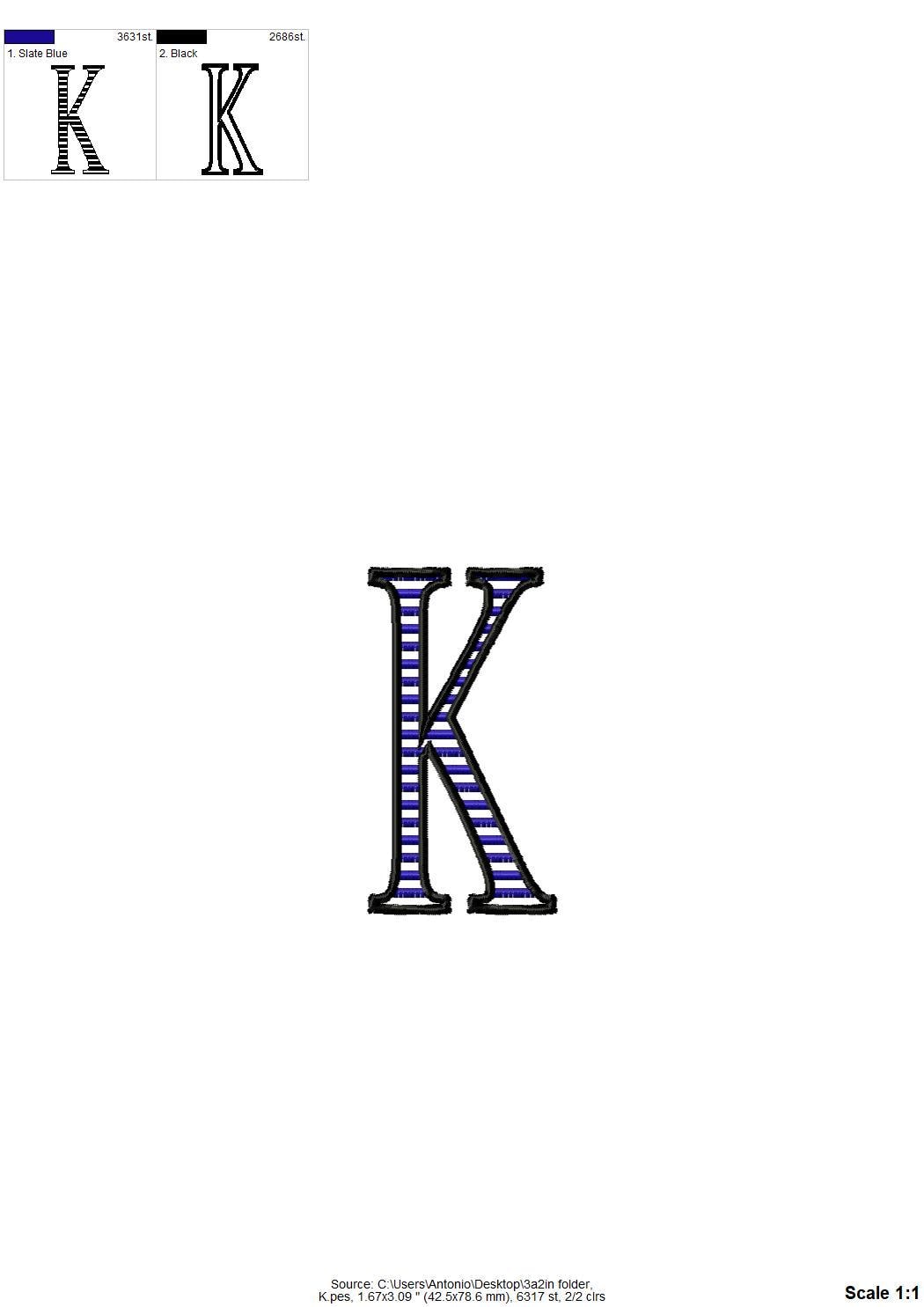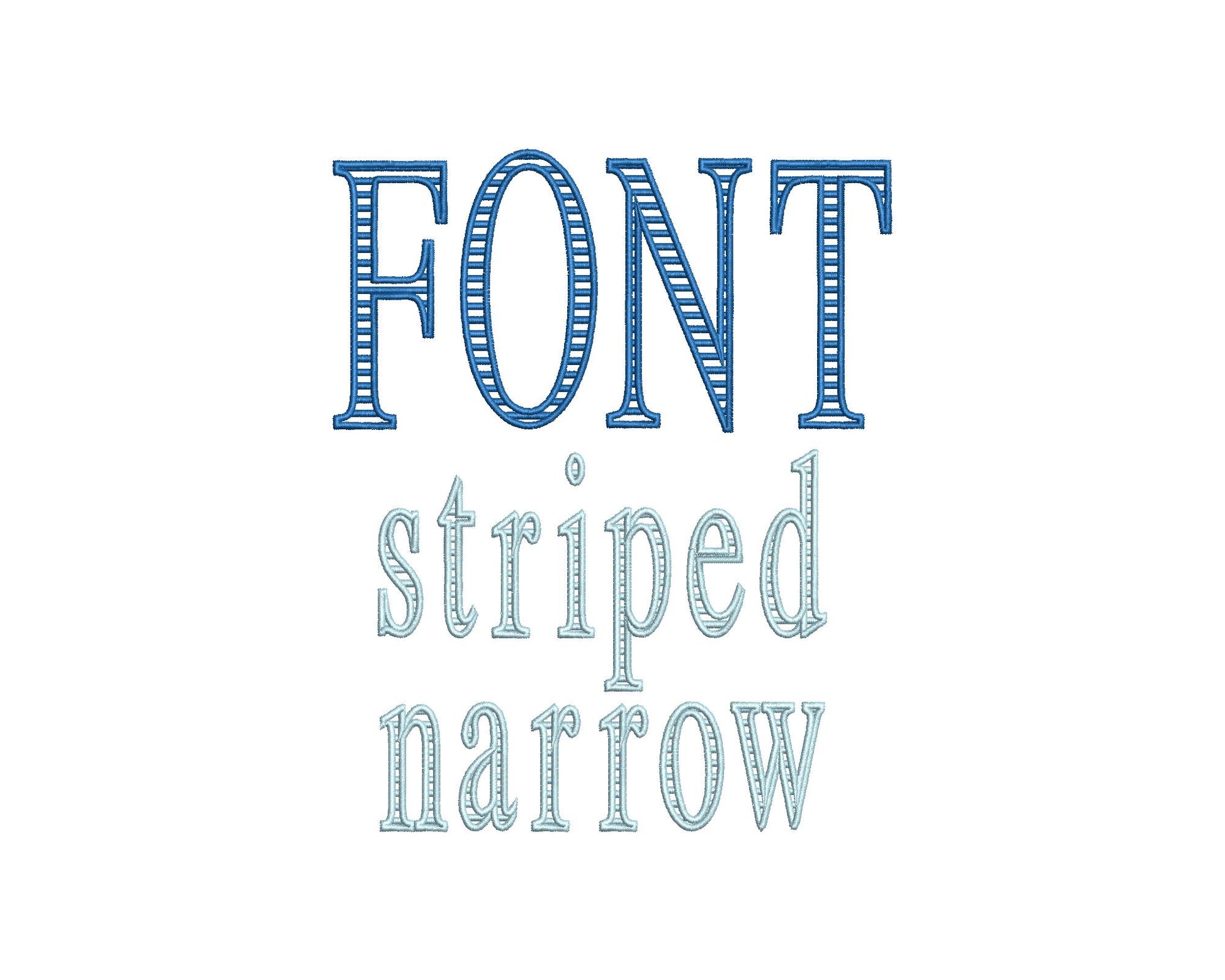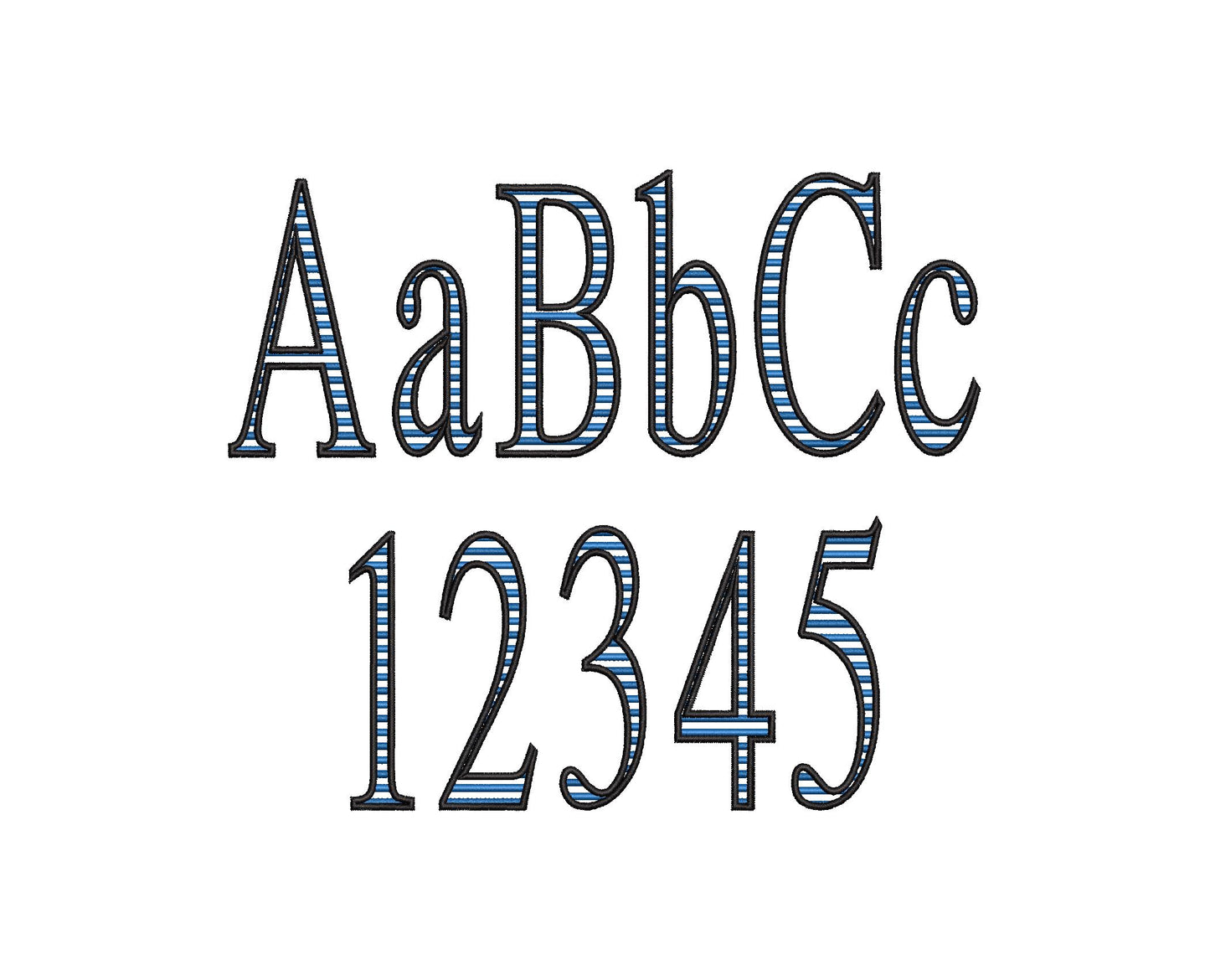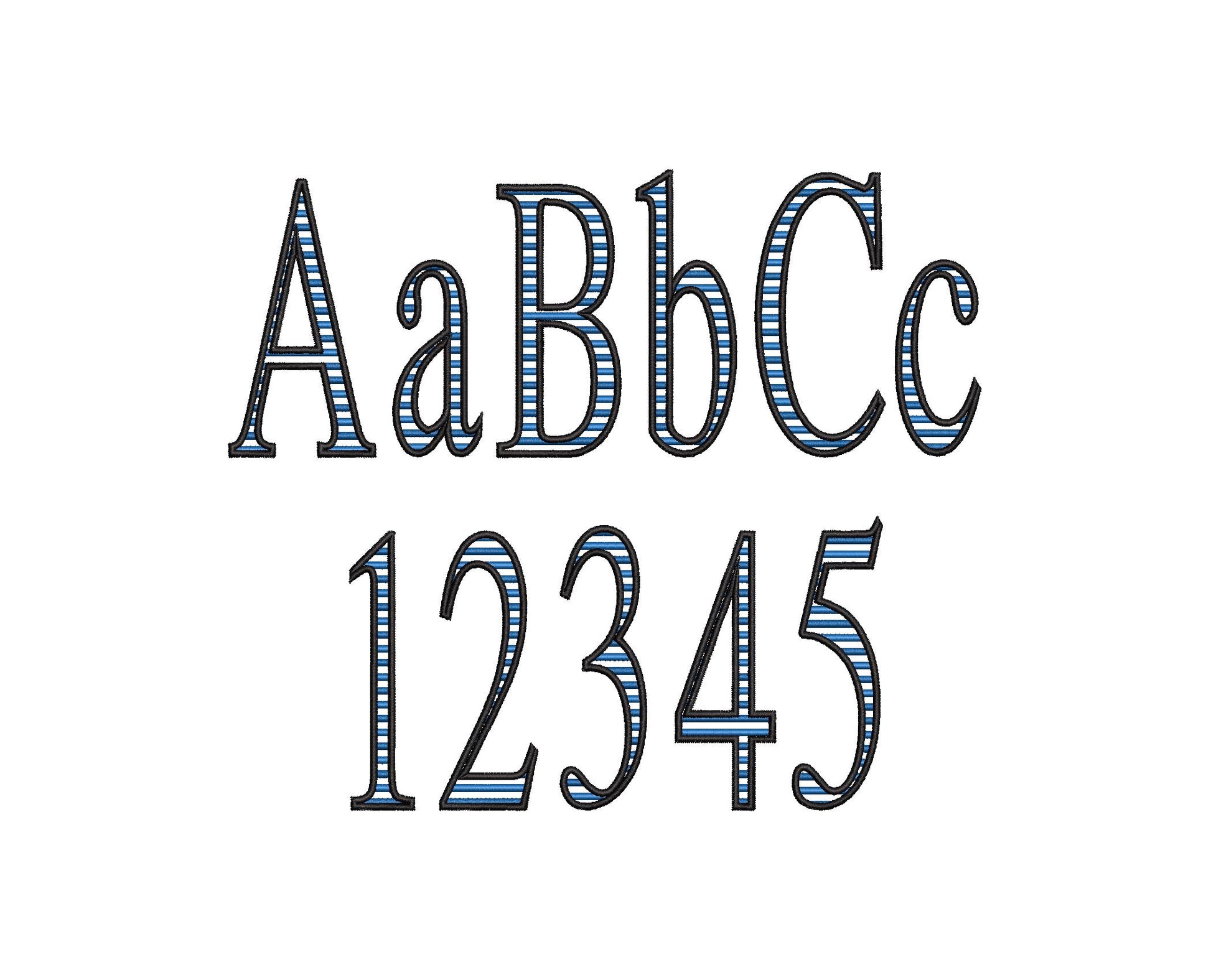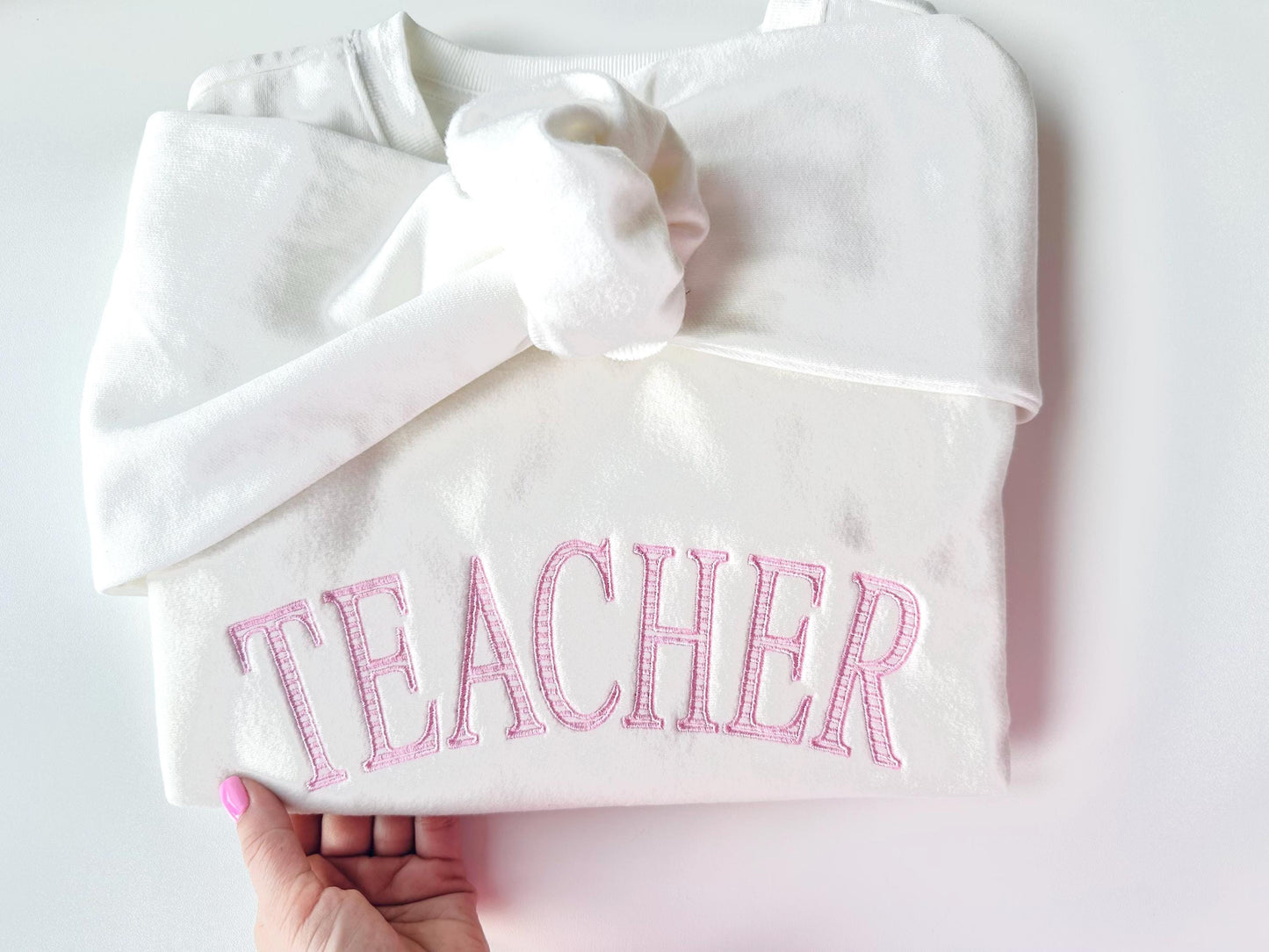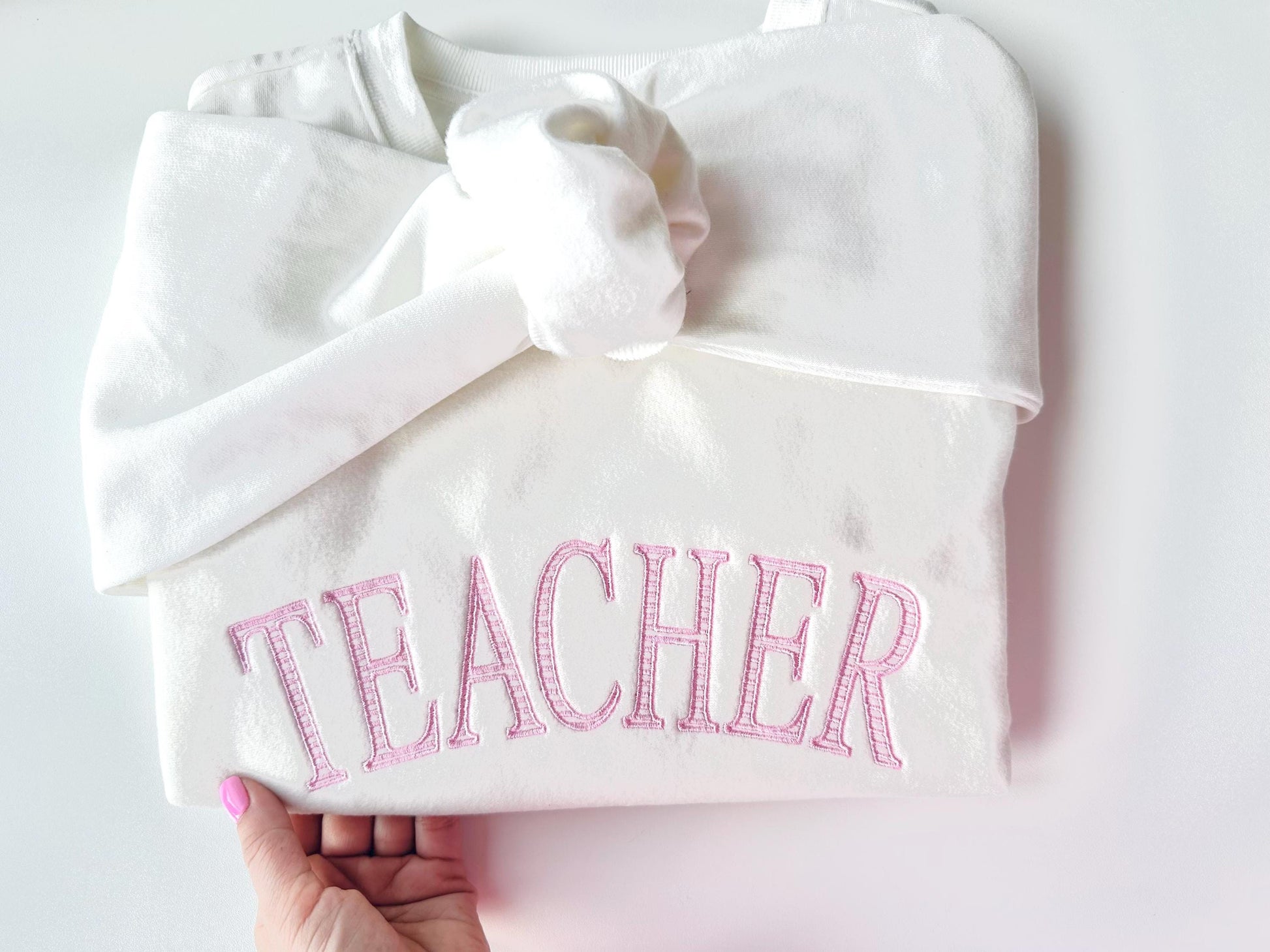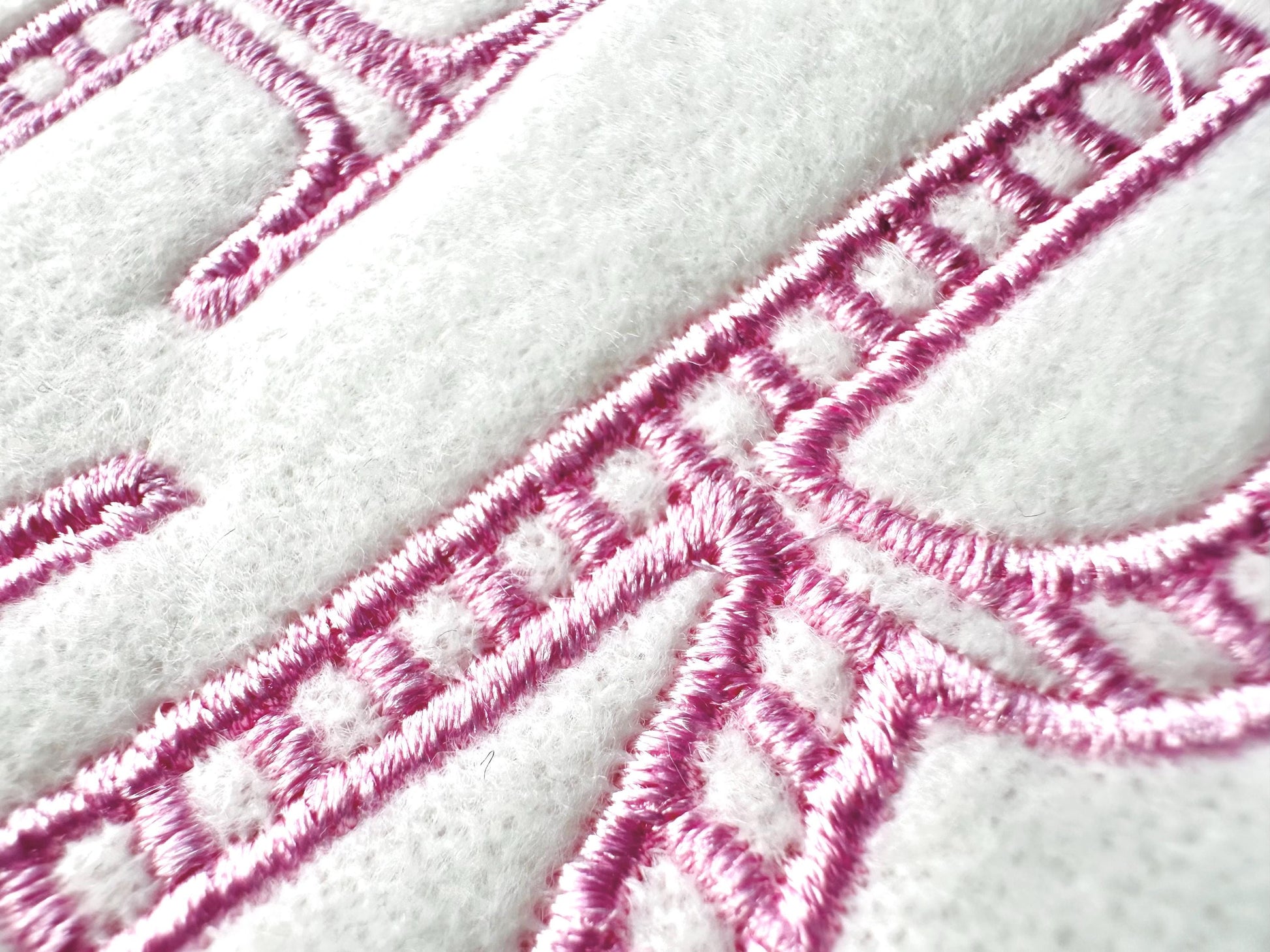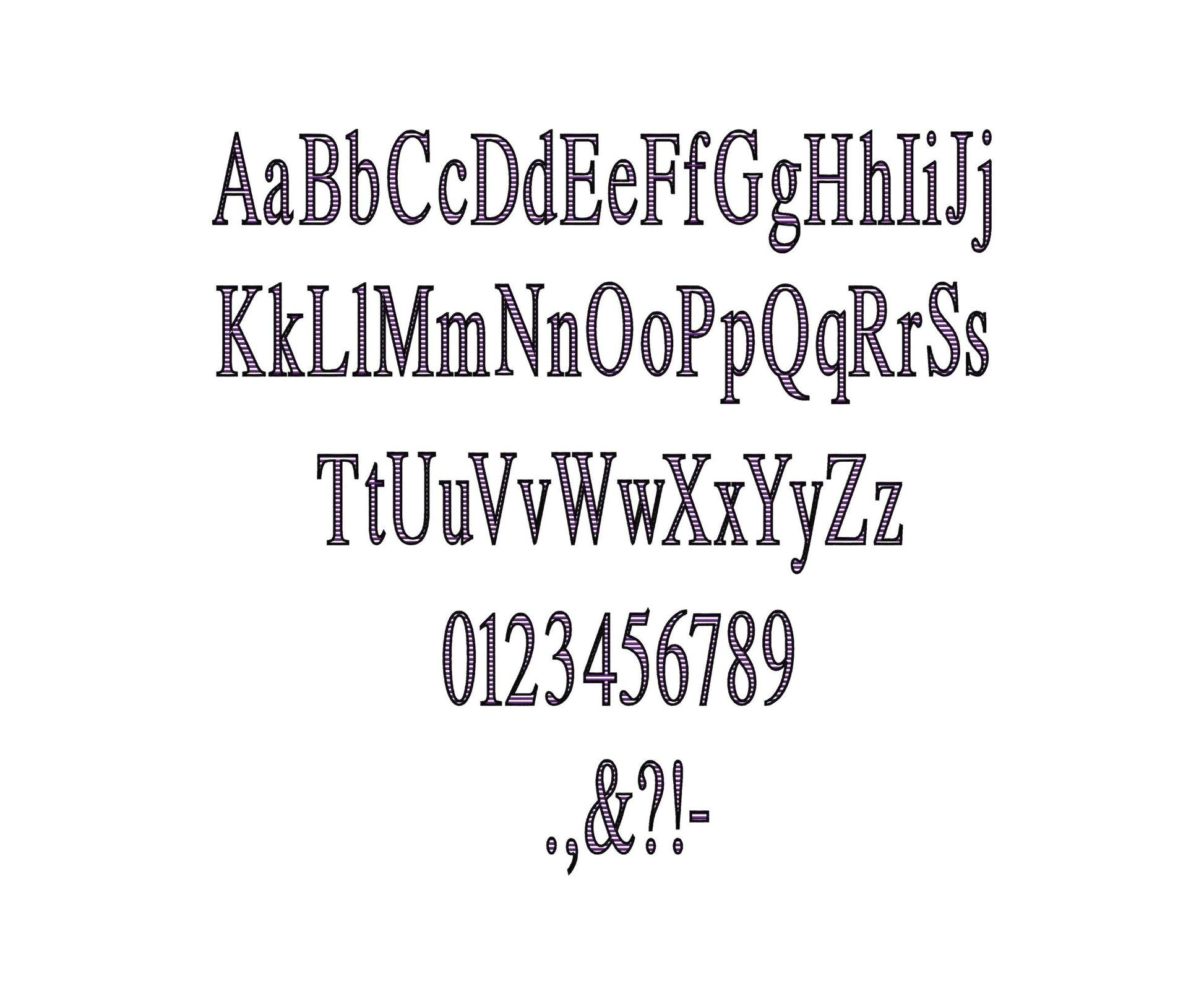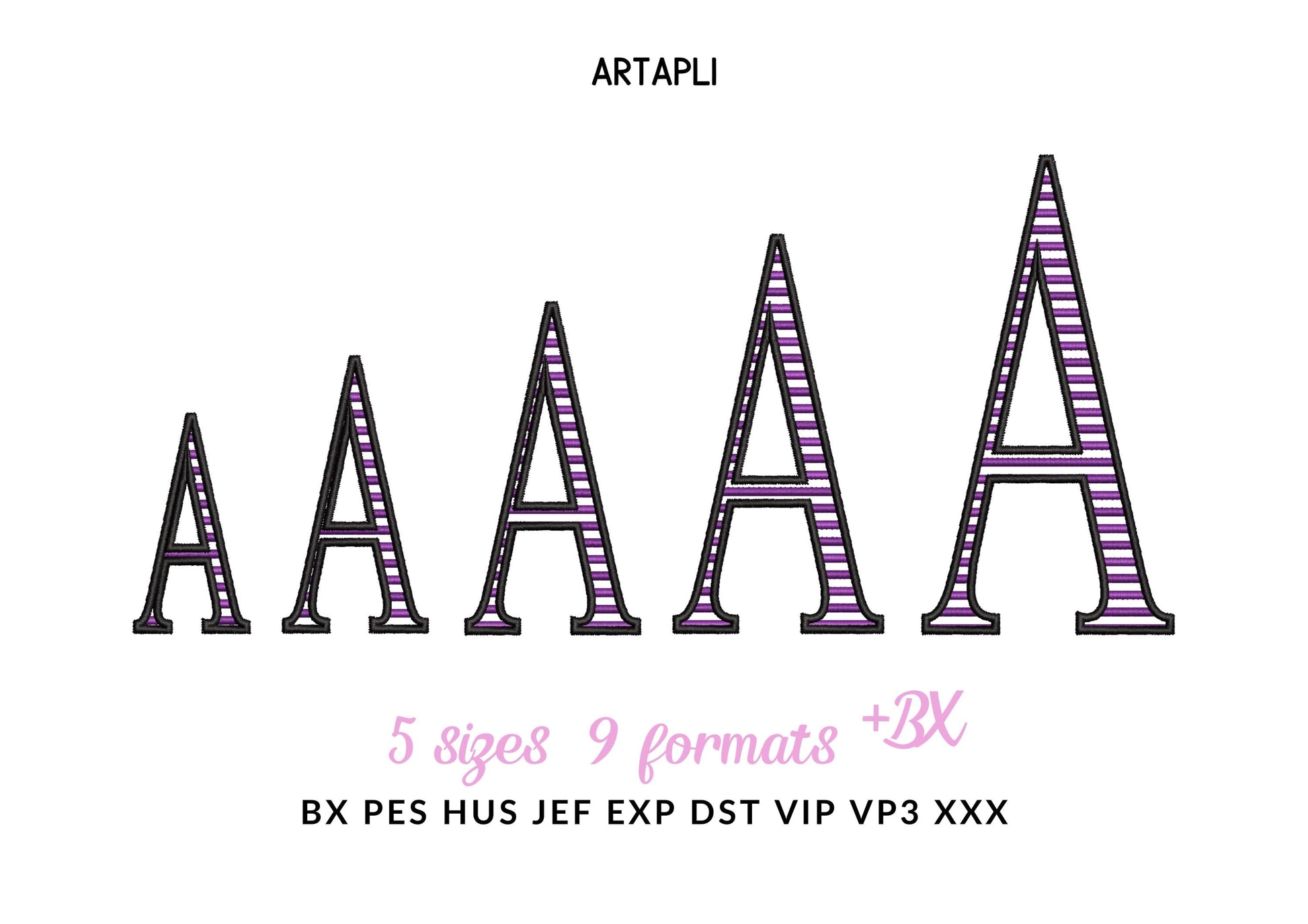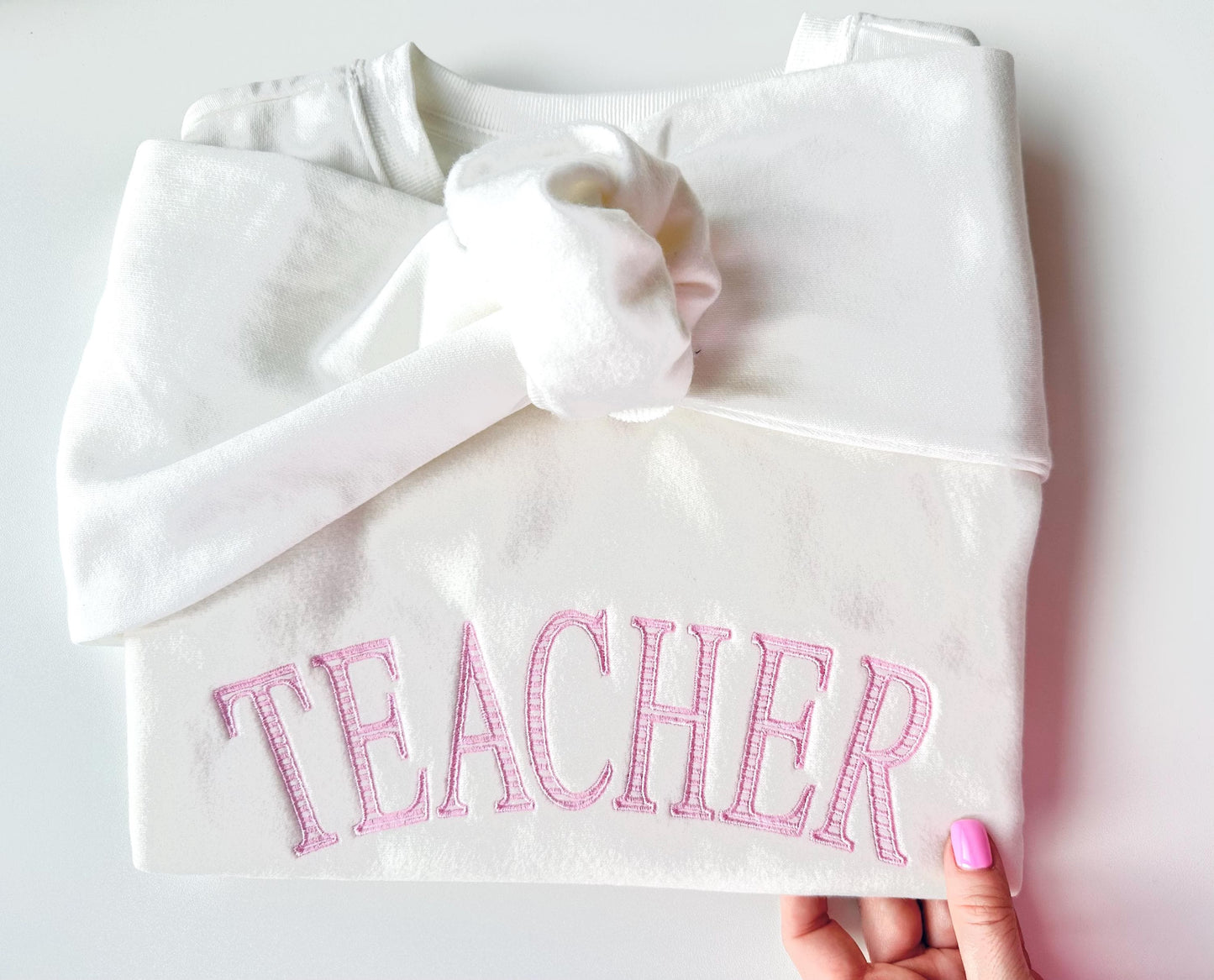
perfect sew out,,always nice. beautiful
Great file. Stitched out perfectly!
Great quality fonts, Easy to Use....
Unfortunately the font download is singular and requires a lettering tool. While that is not unusual, after three stitch outs it was just a fuzzy lettered font. I have just begun buying fonts and the single letter font w lettering tool requirements is, well, bulky and time consuming.
Love this shop. Everything stitches out perfectly. This font is gorgeous
Very cute font. I did get several thread breaks throughout the stitching of 3 letter; but not sure what the cause was.
Haven’t used yet but files look nice.
Love it! The stripes are a nice touch to the design
It looked lovely with my butterfly on my wreath sash
Stitched perfectly! Looks beautiful! I recommend!
Super cute I loved how it turned out. Great size options
Stitches out great, no weird thread breaks or excessive clean up.
This stitched out wonderfully! Customer loved it.
This is one of the best fonts I have purchased. I also like how you can use 2 colors on each letter. I just used 1 color. It is super cute. I used the font on a baby bib.
Such a great download! Love!
Just as expected love it!
Stitched well even on a knit
Worked well for me for my first attempt at embroidering a jumper.
exactly as pictured. looks gr
I love this font. It stitched out perfect. Everyone loved it.
Love this font, stitched out great!
Beautiful sew out and perfect sizes
time consuming to say the least - but beautiful stitch out
This font is so cute!
Great outcome and easy to transfer
perfect stitrchout for our project
Great font looks fantastic! Recommend
Yes and great. Stitched perfectly
Horizontal lines, love the look it gave!!
Beautiful font for so many uses
Essayé aujourd'hui. Satisfaite du résultat.
Adorable font. Can’t wait to use.
Haven't used this font yet but looking forward to embroidering my bath linens. Glad to have this font in my collection.
Haven't tried to use or stitch yet.
was a beautiful add to my door sash
I still have not try it.
one of my favorite fonts!!
Very very pretty. I think I will be doing a lot with this
Pretty good stitch, love how it turned out
Can't wait to use this
This is such a beautiful font! I love using it for monograms.